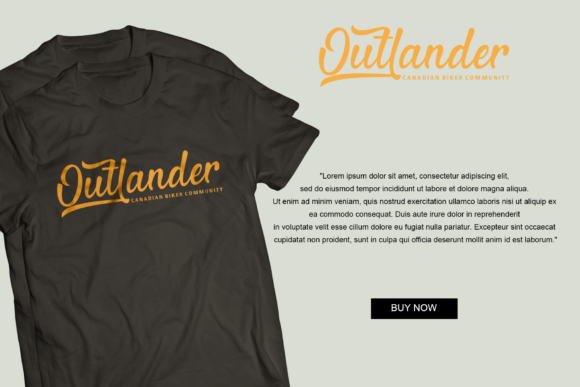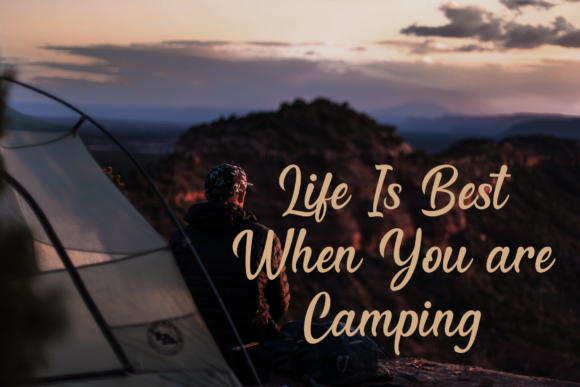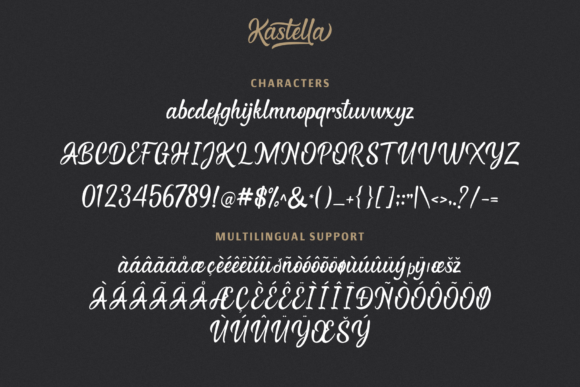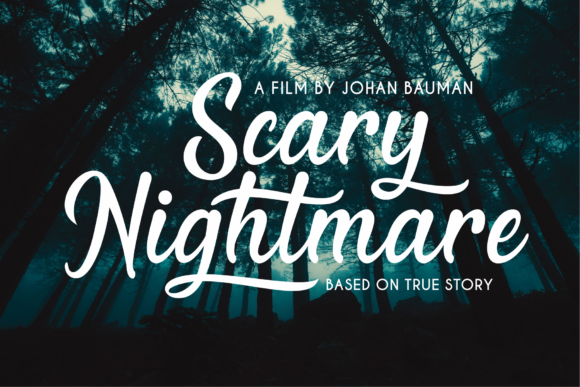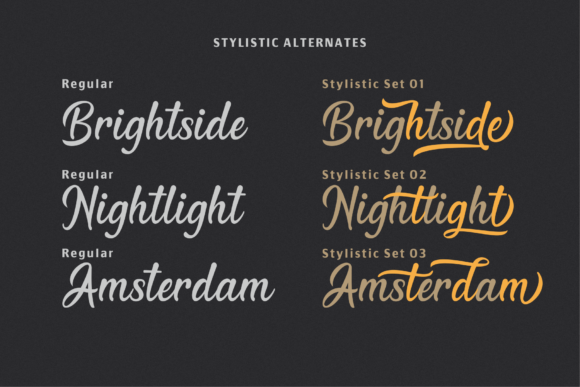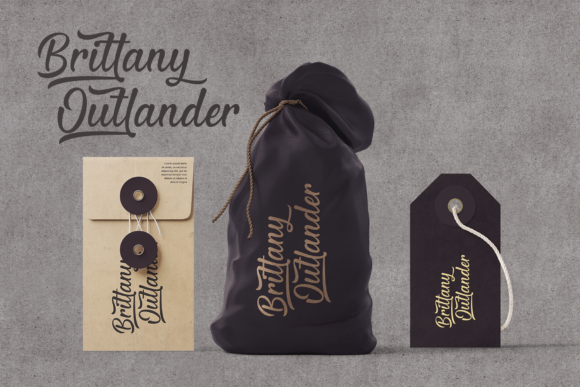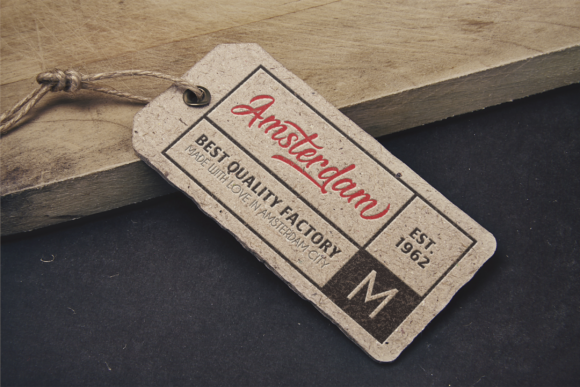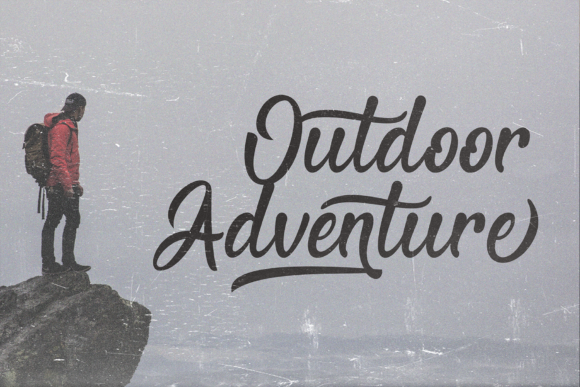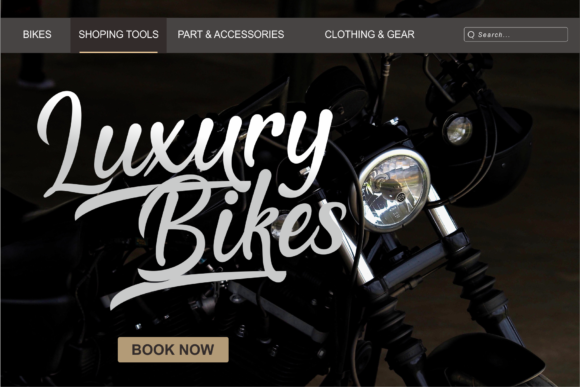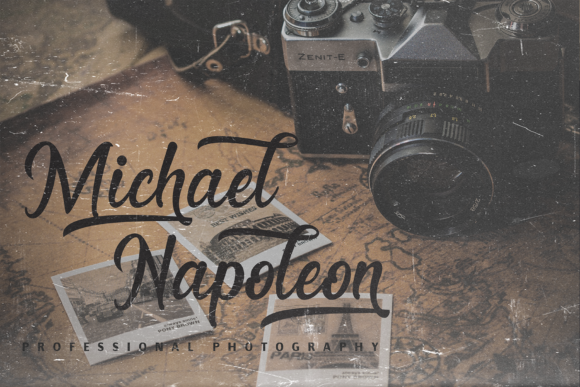
HomeScript FontsKastella Font Script Fonts Kastella Font FacebookXPinterestWhatsApp Kastella Font Poster 2 Kastella Font Poster 3 Kastella Font Poster 4 Kastella Font Poster 5 Kastella Font Poster 6 Kastella Font Poster 7 Kastella Font Poster 8 Kastella Font Poster 9 Kastella Font Poster 10 Kastella Font Poster 11 Kastella Font Poster 12 About Kastella Font Kastella is a unique and powerful script font with a friendly feel. Get inspired by its bold charm! DOWNLOAD ON CREATIVE FABRICAThis font is sold and delivered by Creative Fabrica. Font Canyon may earn a commission if you buy through this link. People also explored Vigor Font Marcella Agatha Font White Balance Font Zara Amorett Font Playground Happiness Font Neue Sans Font Piano Teacher Font Winterlove Font 355 0 TagsKastella Font Previous articleAngelive FontNext articleMontheim Font LEAVE A REPLY Cancel reply Comment: Please enter your comment! Name:* Please enter your name here Email:* You have entered an incorrect email address! Please enter your email address here Website: Save my name, email, and website in this browser for the next time I comment. Personal Use Free Heart Memory Personal Use Free Read more about this font Stone Garden Personal Use Free Read more about this font Breakaway Personal Use Free Read more about this font Boston Traffic Personal Use Free Read more about this font BLOG Free vs Paid Fonts: Why Investing in Premium Fonts Is Worth It Free vs Paid Fonts: Why Premium Fonts Are Worth It in 2025 The debate of free vs paid fonts continues in the design world. While... 5 Fonts That Will Dominate Design Trends in 2026 Modern Sans-Serif Fonts That Brands Love in 2025 Transform Your Website: Elevate Your Typography with 7 Best Web Font Generators